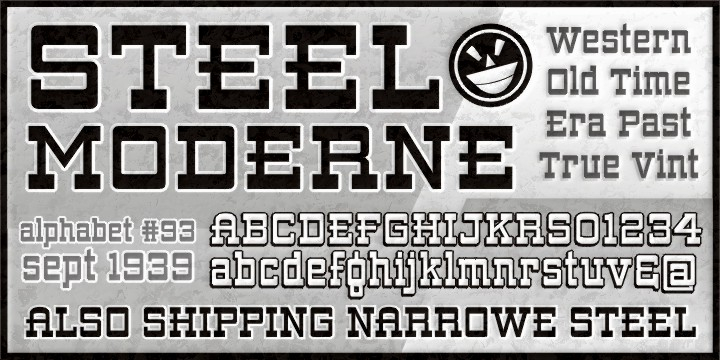
ARB 93 Steel Moderne is a display and western font family. This typeface has thirty-two styles and was published by The Fontry.
Want an authentic Western font? From way back when? For an old-timey feel? Heck, pardner, those ain’t big old slab serifs yer lookin’ at. Those are “bars,” as in bars of steel. They might be a little rusty, though, having been around since 1939. That’s when these branding-iron ready letterforms first graced the pages of ST Publications’ “SIGNS of the Times” magazine. This was the 93rd type treatment by master sign painter, Alf R. Becker. And while he had hoped the sign guys would soften things up a bit by blunting the edges of all that steel, most have been left sharp and cut-ready. So watch your fingers! And watch also for the Narrowe version of Moderne Steel. It’s been pre-condensed to avoid those embarrassing stretch marks that result from an improperly distorted layout. And of course we did go ahead and blunt the edges a bit, so you wouldn’t hurt yourself. That’s why this one Becker font family maxes out at 32 flavors. That’s a lot of bolding and blunting and italicizing going on there!
Beginning in January, 1932, Alf R. Becker of St. Louis Missouri, at the request of then-editor E. Thomas Kelly, supplied “SIGNS of the Times” magazine’s new Art and Design section with an alphabet a month, a project initially predicted to last only two years. Misjuding the popularity of the “series,” it instead ran for 27 years, ending finally two months before Becker’s death in 1959, for a grand total of 320 alphabets, a nearly perfect, uninterrupted run. In late 1941, just ten years after the first alphabet was published, 100 of those alphabets were compiled and published in bookform under the title, “100 Alphabets,” by Alf R. Becker.
As published in September, 1939, this is the description that accompanied Becker’s 93rd alphabet, Steel Moderne:
Steel Moderne is Alf R. Becker’s ninety-third alphabet in his almost-8-year-old series of alphabet art in SIGNS of the Times. This style can be used effectively in all lines of modern sign work. Top and bottom bars are extra heavy, with vertical lines half the thickness of the bars, and all edges are blunt.
Many font designers have tackled converting Becker’s incredible achievement from paper to digital, and many claim to treat his work with care and dignity. But the Fontry’s Becker fonts remain the most historically accurate and viable treatments available, arriving in two industry-satisfying versions: CAS (Computer-Aided Signmaking) and DTP (Desktop Publishing). And as with all Fontry fonts, the kerning is not optional—it’s exceptional-!!!